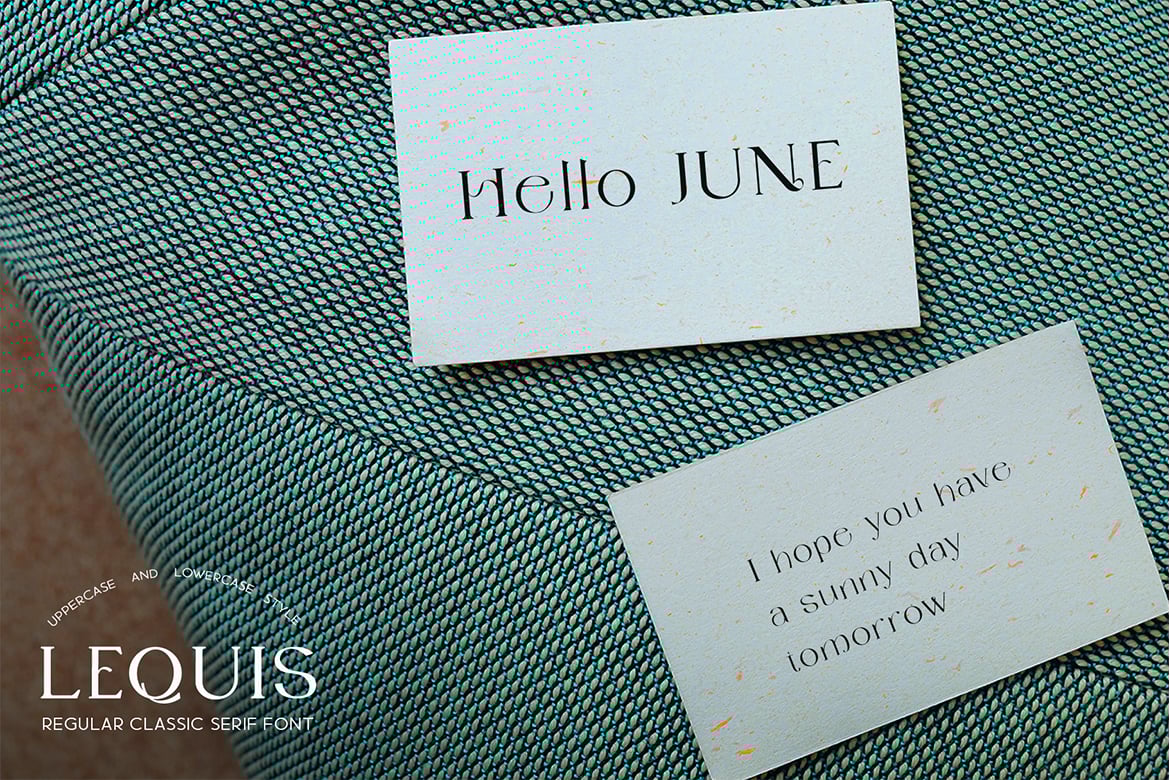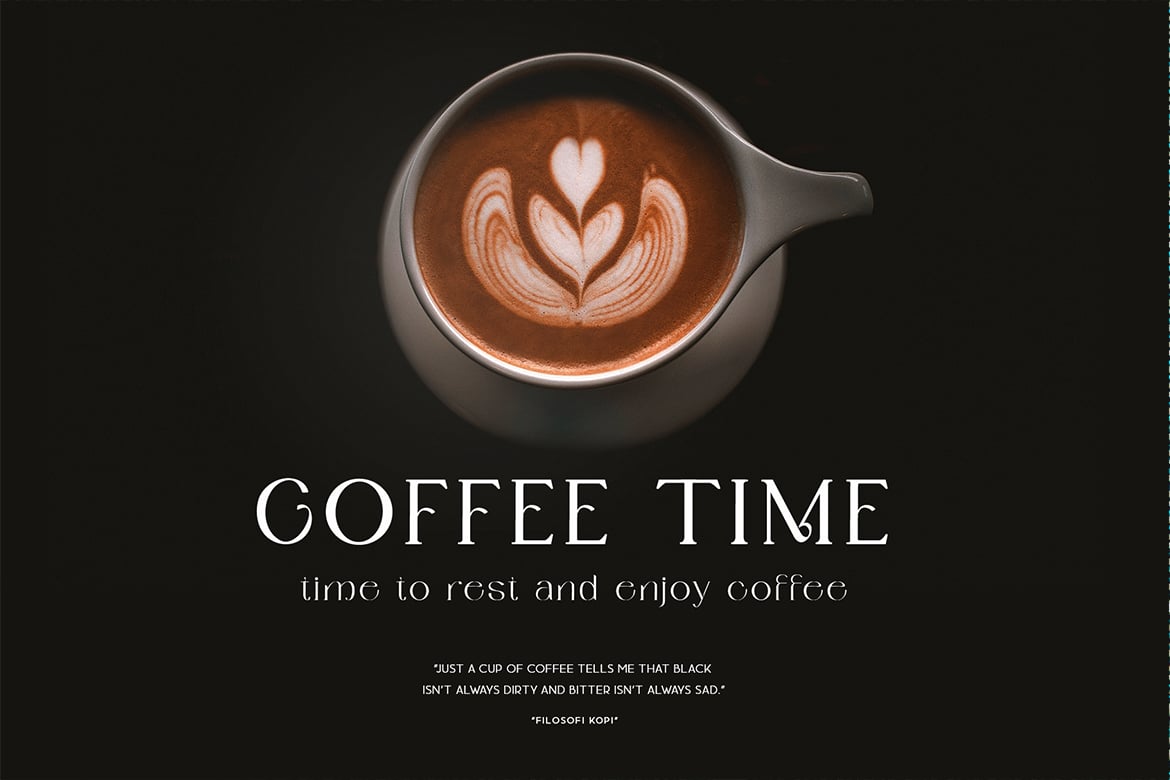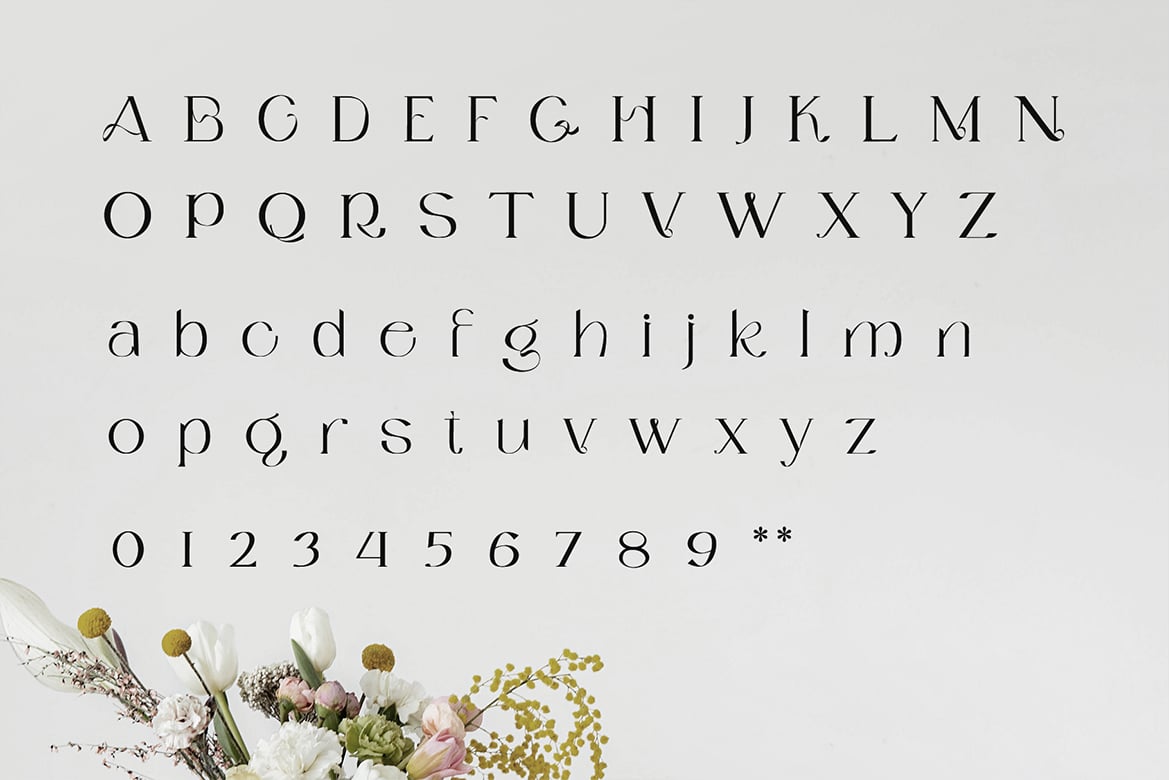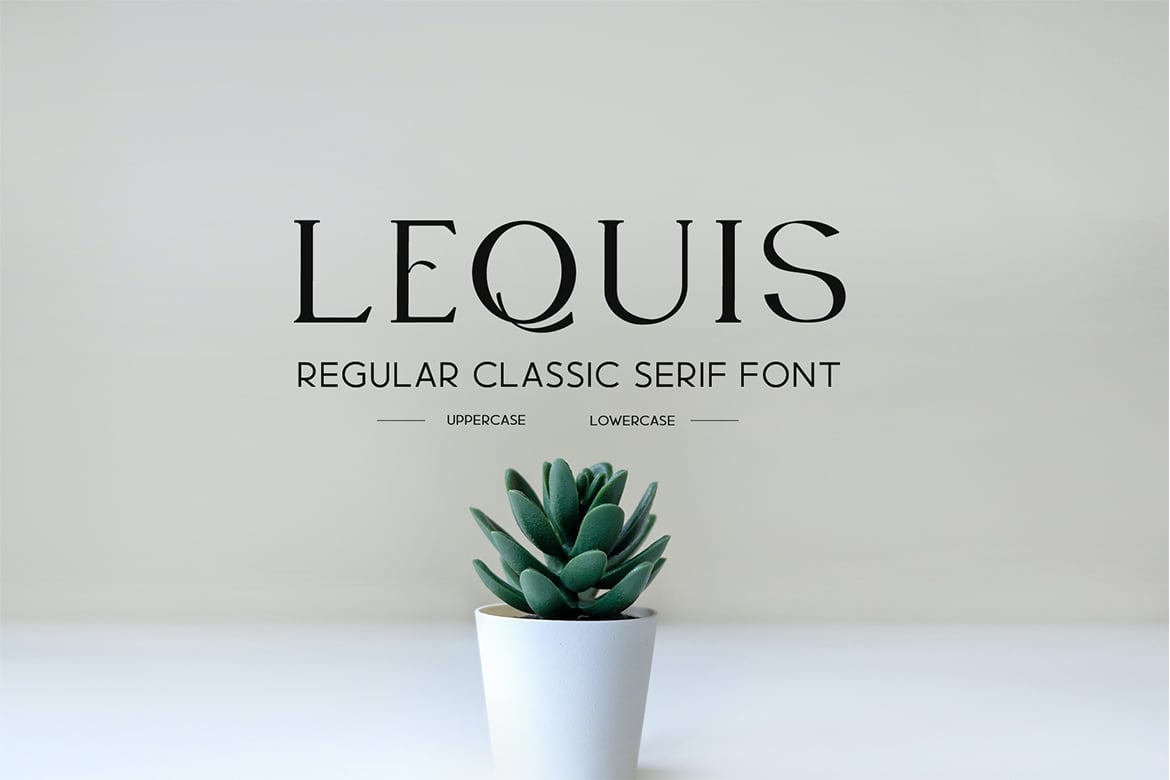
Lequis – Classic Serif Font
Introducing Lequis, an elegant, classic, and beauty serif font. Its unique and lovely feel.
So perfect for you who needs a typeface for logo designs, magazine, social media, brochure, and many more.